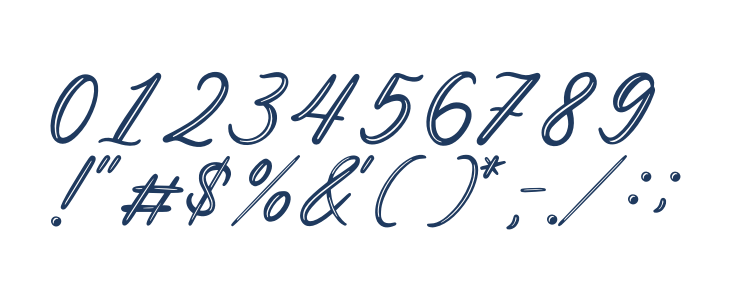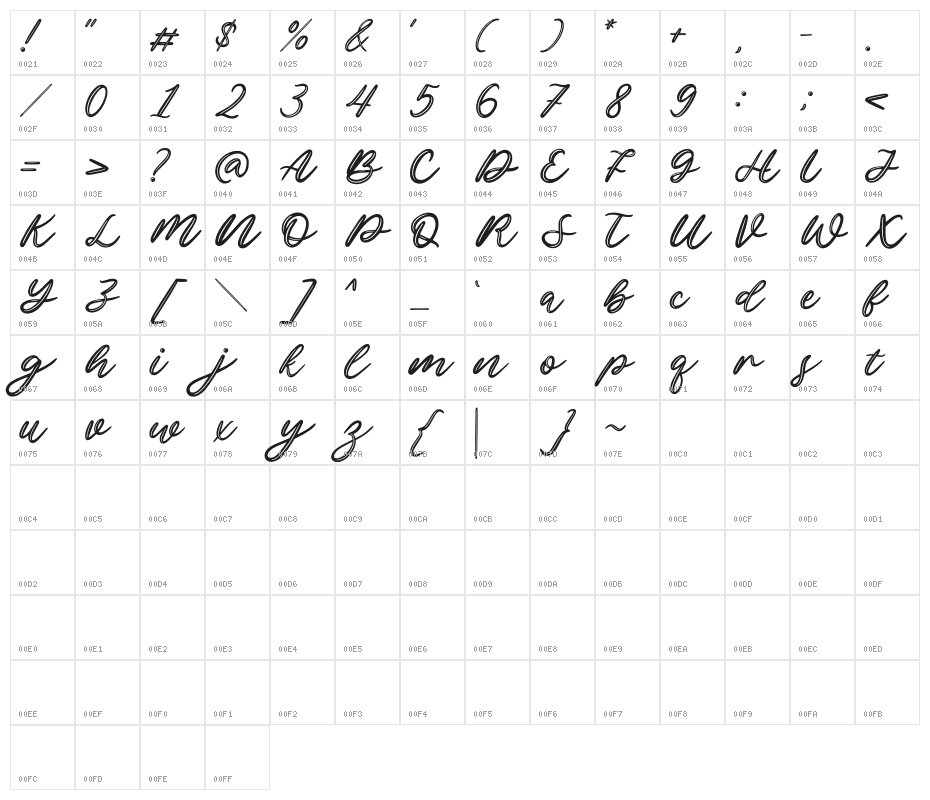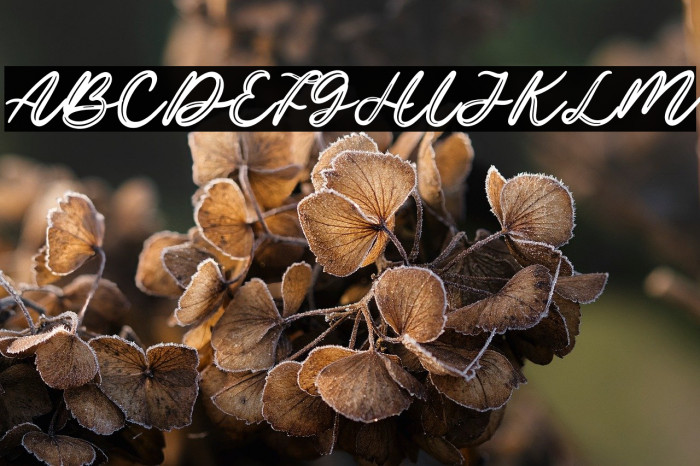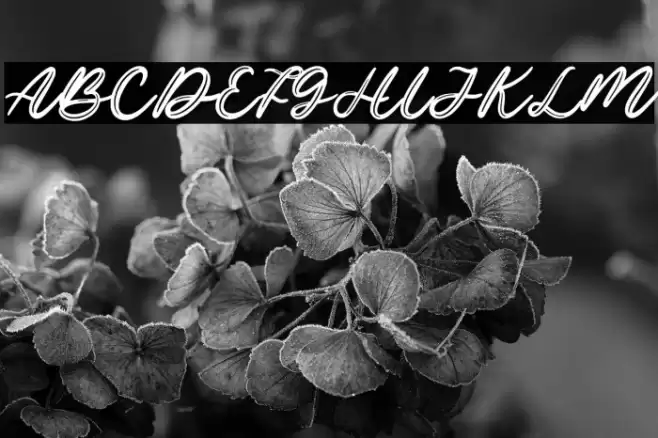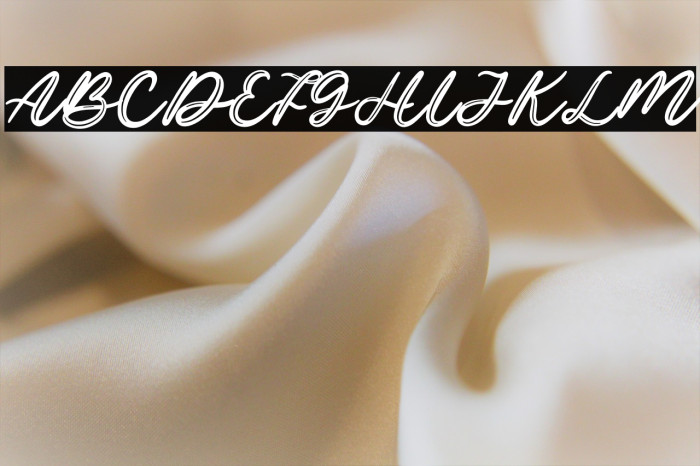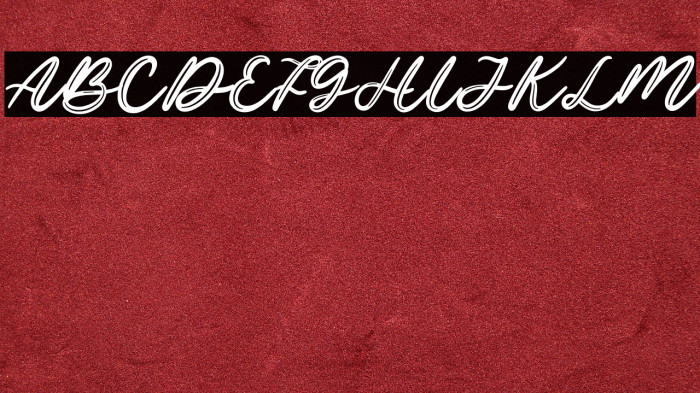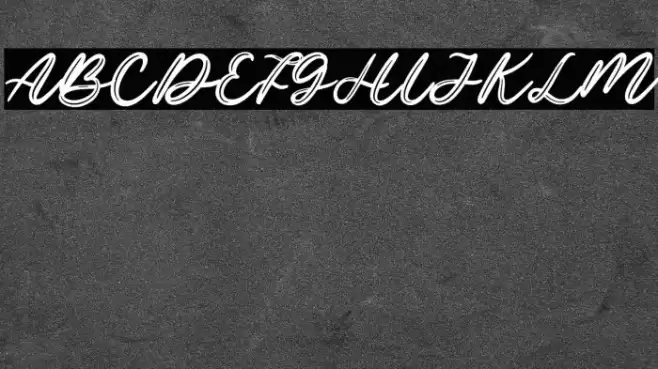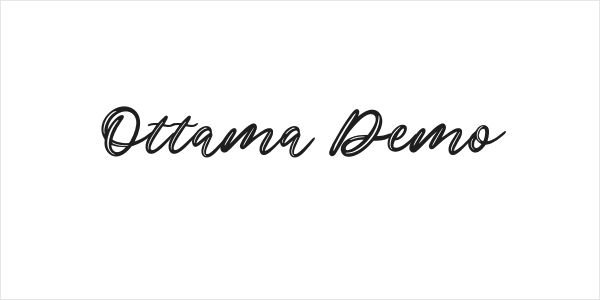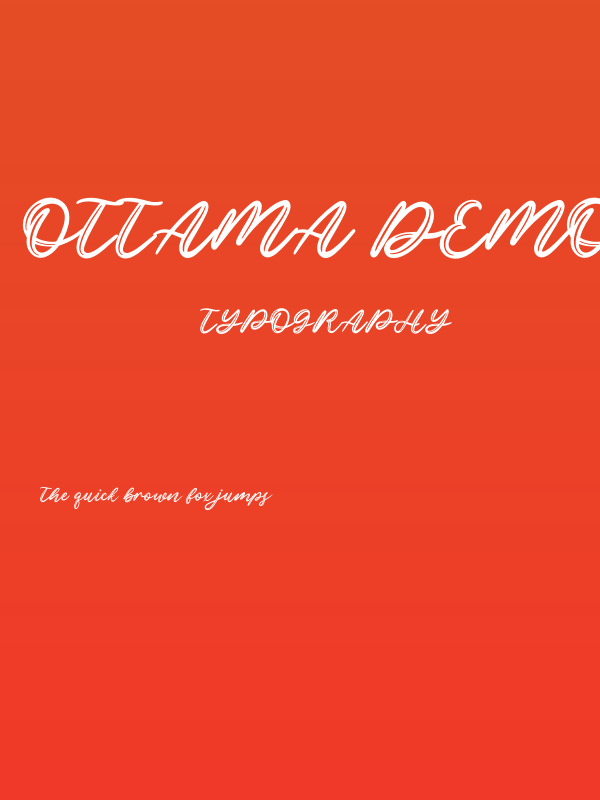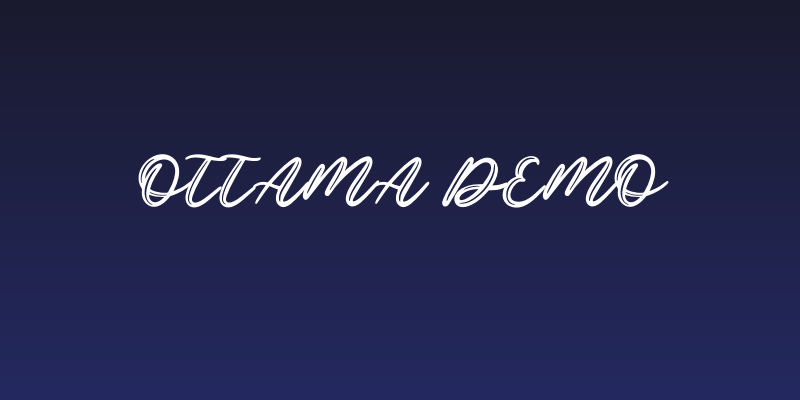
Ottama Demo Font
Ottama Demo Description
This font features a flowing, cursive style with elegant loops and smooth transitions between characters. The uppercase letters are bold and prominent, with a slight slant that adds a dynamic feel. Lowercase letters maintain a consistent flow, enhancing readability while preserving the decorative nature. Numbers are clear and distinct, matching the overall style with a slight slant. Special characters are well-integrated, maintaining the cursive theme. The font's design is both sophisticated and approachable, making it suitable for a variety of creative projects.